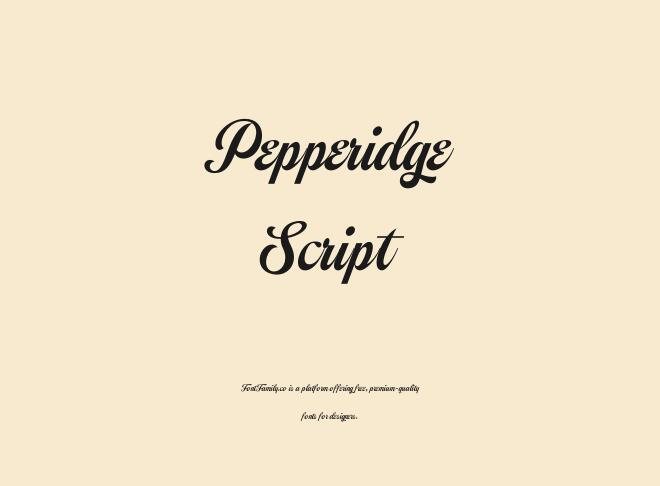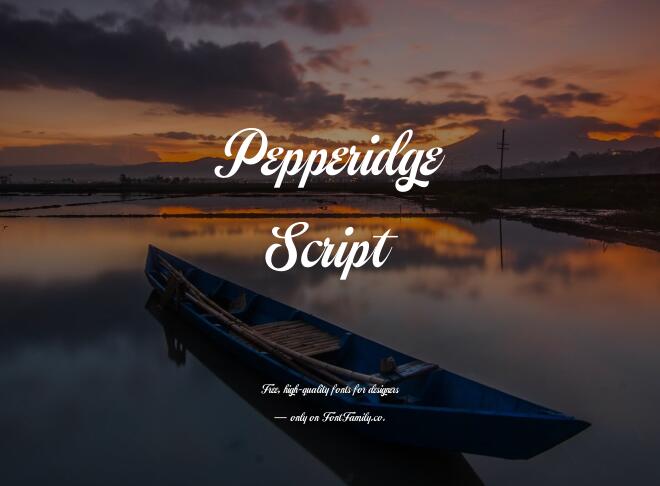
Pepperidge Script Font
Pepperidge Script Font is an elegant and handwritten typeface that exudes charm and character. Its distinctive script style is reminiscent of vintage calligraphy, making it a perfect choice for invitations, branding, and logo designs. The font's rustic undertones add a touch of warmth and authenticity, setting it apart from other script fonts. Its elegant strokes and detailed curves make it a versatile choice for designers, ideal for projects that require a personal and sophisticated touch. The font's unique style, combined with its ease of use, make it an excellent addition to any designer's toolkit. Pepperidge Script Font is free for personal use, making it a cost-effective choice for those seeking high-quality design on a budget.